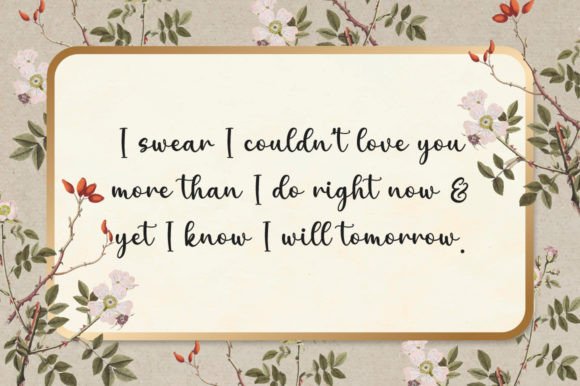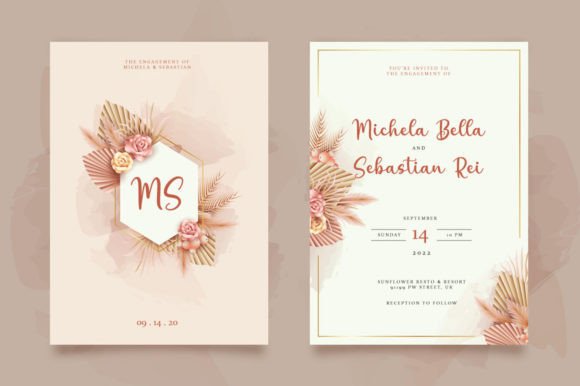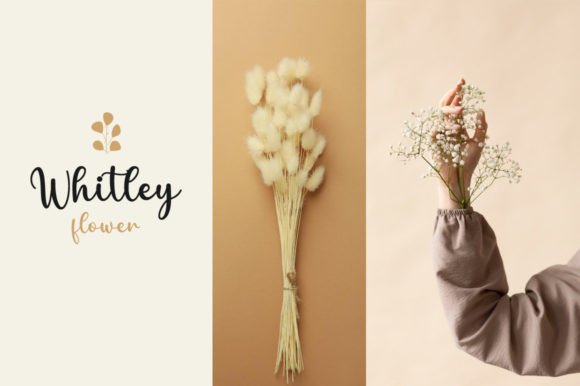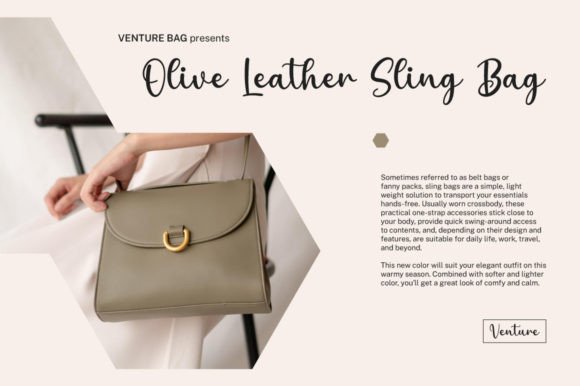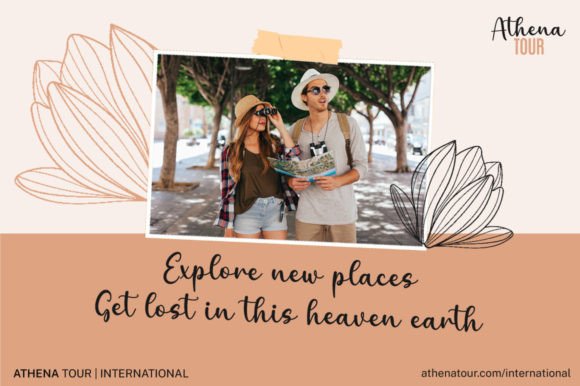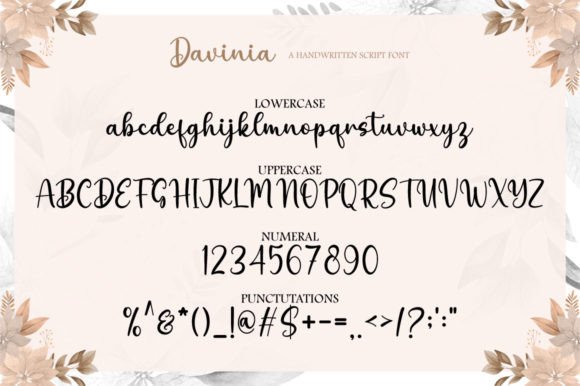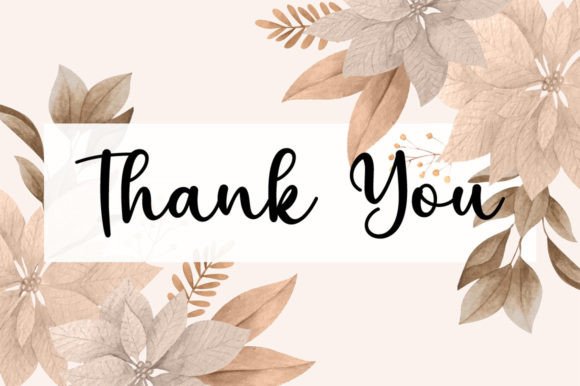
Davinia Font
About Davinia Font
Davinia is a charming and everlasting handwritten font that gives off elegance and a touch of nostalgia. Its classic attraction makes it an excellent choice for various design applications. Notably, it is perfect for creating eye-catching logos, establishing memorable branding, and crafting inspirational quotes that resonate with genuineness and style.
The allure of Davinia lies in its handwritten charm. It conveys warmth, genuineness, and a sense of connection. Moreover, this font fits projects aiming to leave a lasting impression and connect with the audience on a personal level.
Logo Design
For logo design, Davinia offers a chance to create logos that are visually attractive. They also evoke trust and genuineness. Its everlasting handwritten style adds a unique touch that can set your brand apart in a competitive market. Furthermore, using this font in logos ensures your brand is both distinctive and memorable.
Branding
When it comes to branding, Davinia’s classic elegance ensures your brand identity is shared with sophistication and memorability. Thus, whether it’s printed materials, digital assets, or packaging, this font adds a sense of everlastingness and genuineness to your branding efforts. In addition, it helps create a cohesive visual identity that resonates with your target audience.
Inspirational Quotes
Davinia’s attraction extends to quotes and inspirational messages. For instance, its handwritten style improves the feelings impact of the words, making them more relatable and meaningful. Furthermore, whether you’re creating inspiring posters, social media graphics, or inspirational prints, Davinia helps you convey your message with style and genuineness.
Versatility in Use
To effectively utilize Davinia’s unique characteristics, designers can implement it in various formats. This includes websites and marketing campaigns. The integration of this font into online platforms can significantly enhance user experience as it brings a sense of familiarity and warmth to digital content. Its versatility allows it to be used across different media while maintaining its charm.
In summary, Davinia is more than just a font; it’s a design asset that embodies everlasting elegance and handwritten charm. In addition, its suitability for logo design, branding, and quotes makes it a valuable choice for designers aiming to create visually captivating and feelingsly impactful work. Embrace Davinia, and discover how it raises your creative projects with its enduring elegance and genuine style.